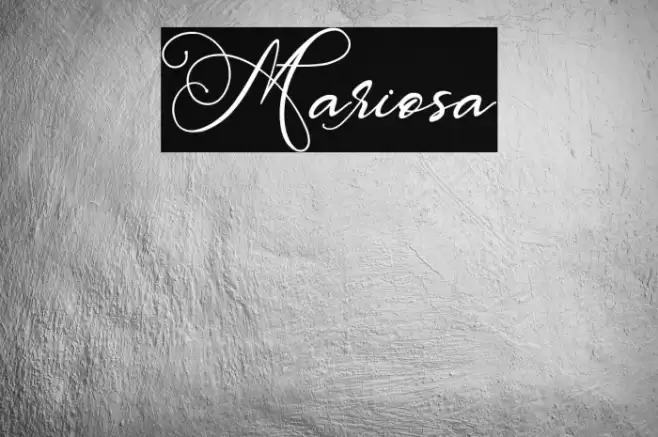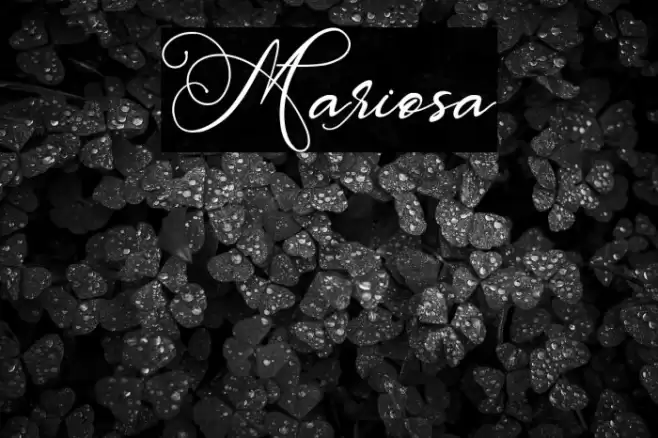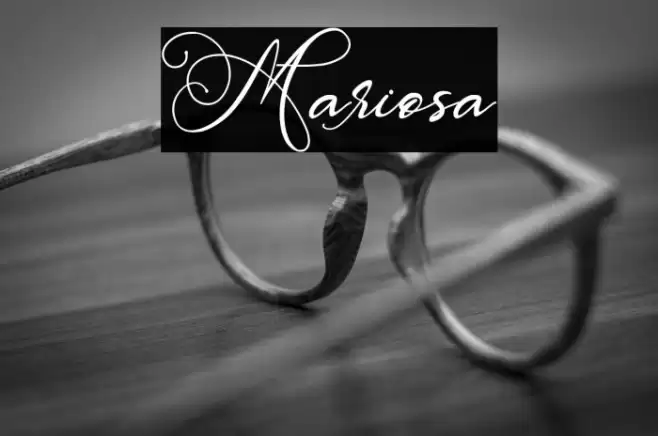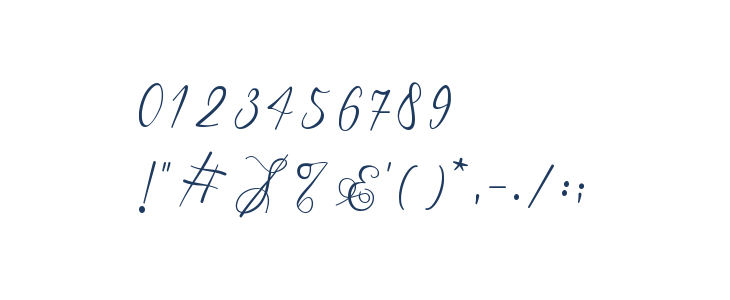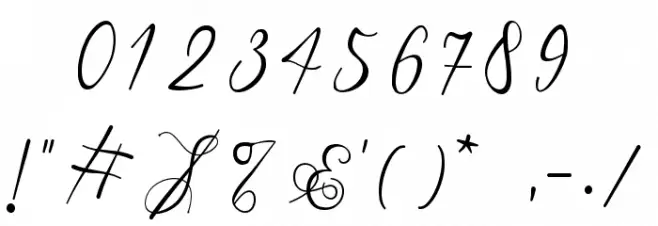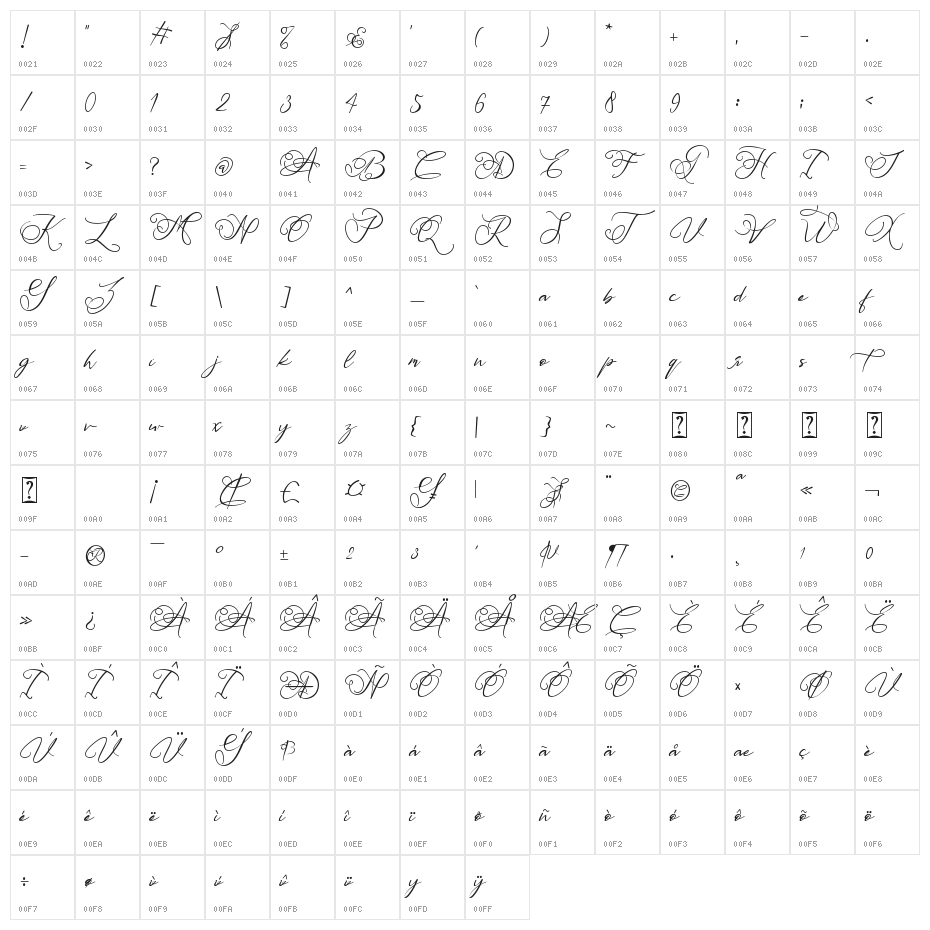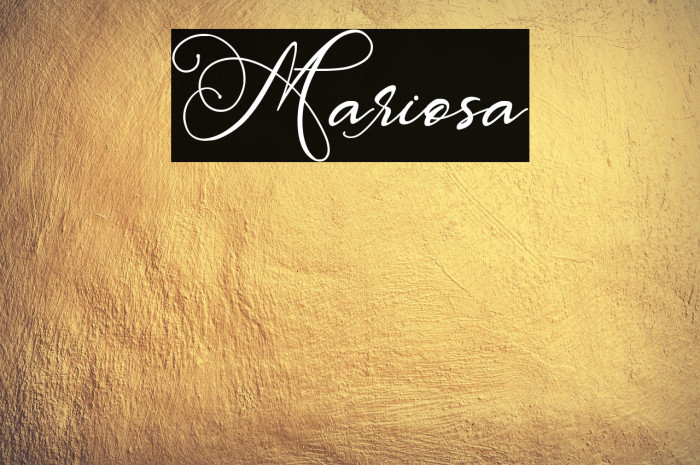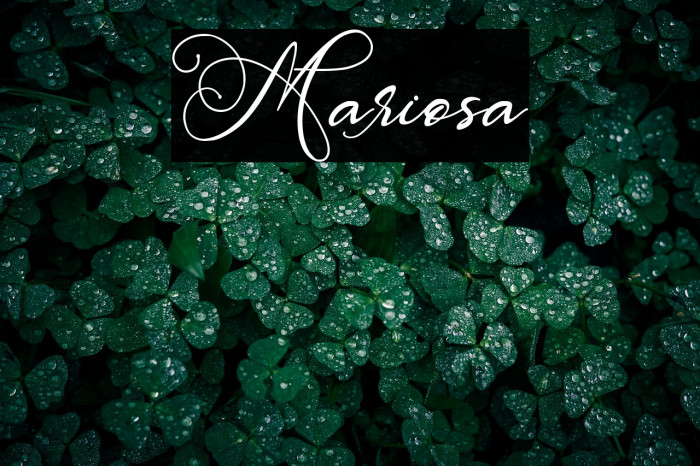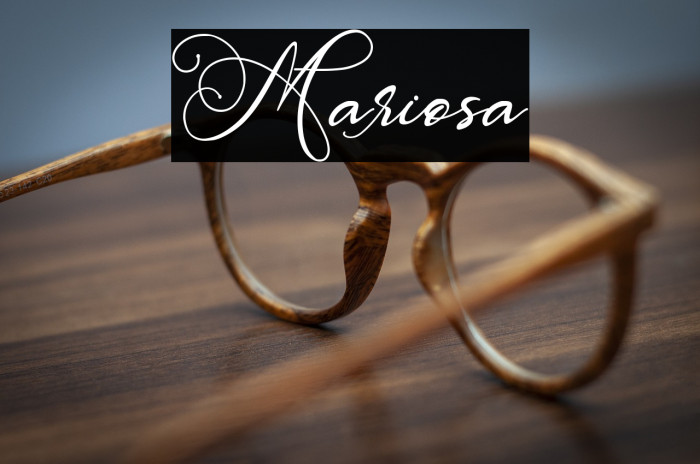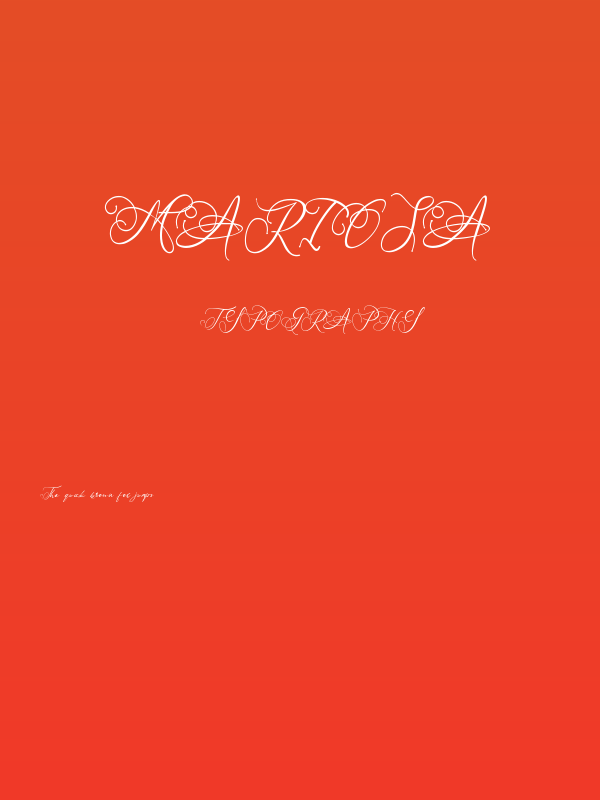
Mariosa Font
Mariosa Description
This font is an elegant and sophisticated script style, characterized by its flowing and intricate cursive letters. The uppercase letters are highly decorative, featuring elaborate swirls and flourishes that give it a luxurious and artistic feel. The lowercase letters maintain a smooth and connected script, providing a harmonious balance between readability and style. The numerals are consistent with the script's overall aesthetic, offering a graceful and fluid appearance. Special characters are designed with the same attention to detail, ensuring a cohesive look across all elements. This font is ideal for projects that require a touch of elegance and sophistication.
An elegant and sophisticated script font with decorative flourishes from Regular fonts.
- Proposed Projects: Wedding invitations, luxury branding, elegant stationery, high-end product packaging.
- Use Case: Logos, Invitations, Branding